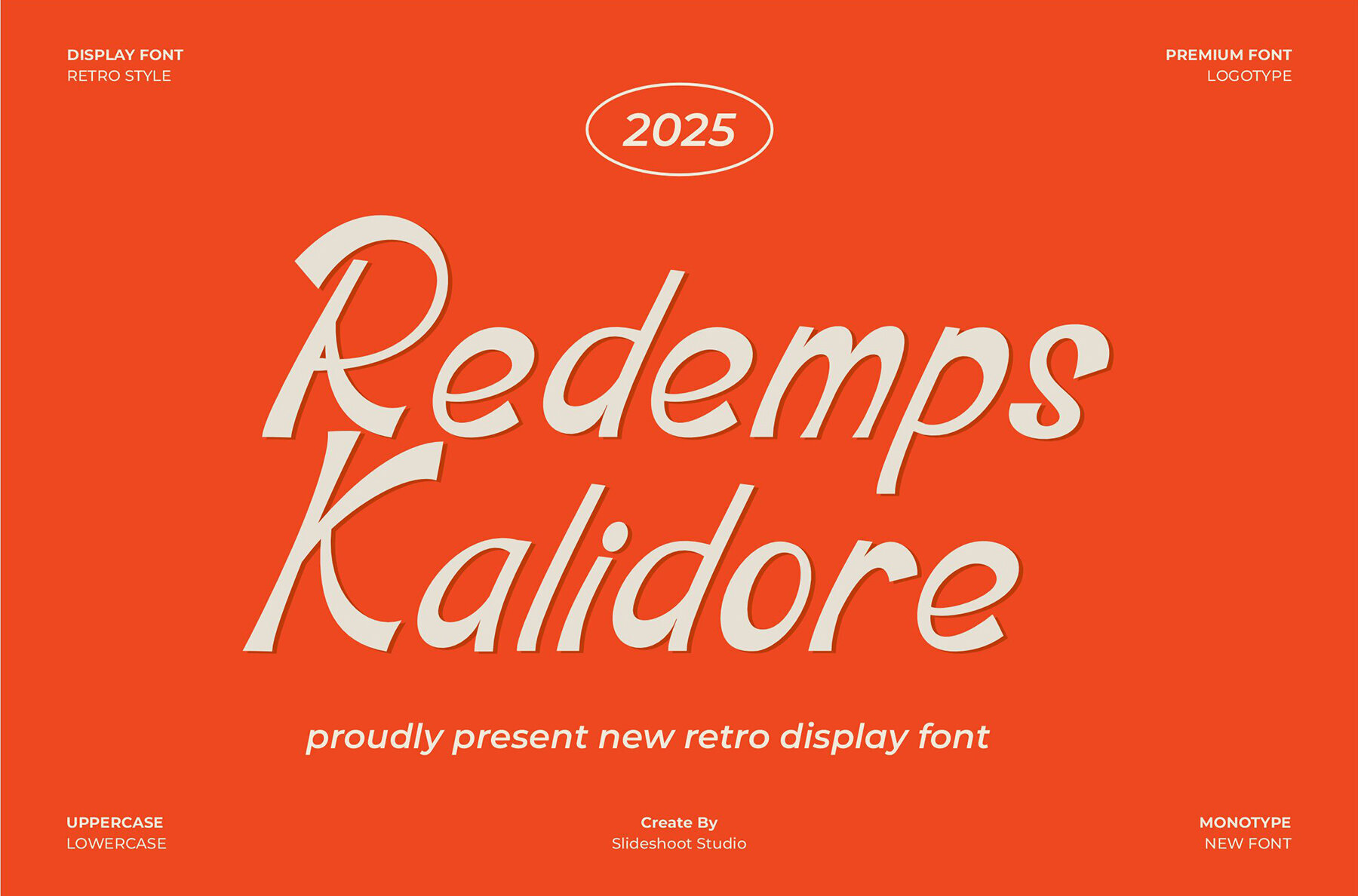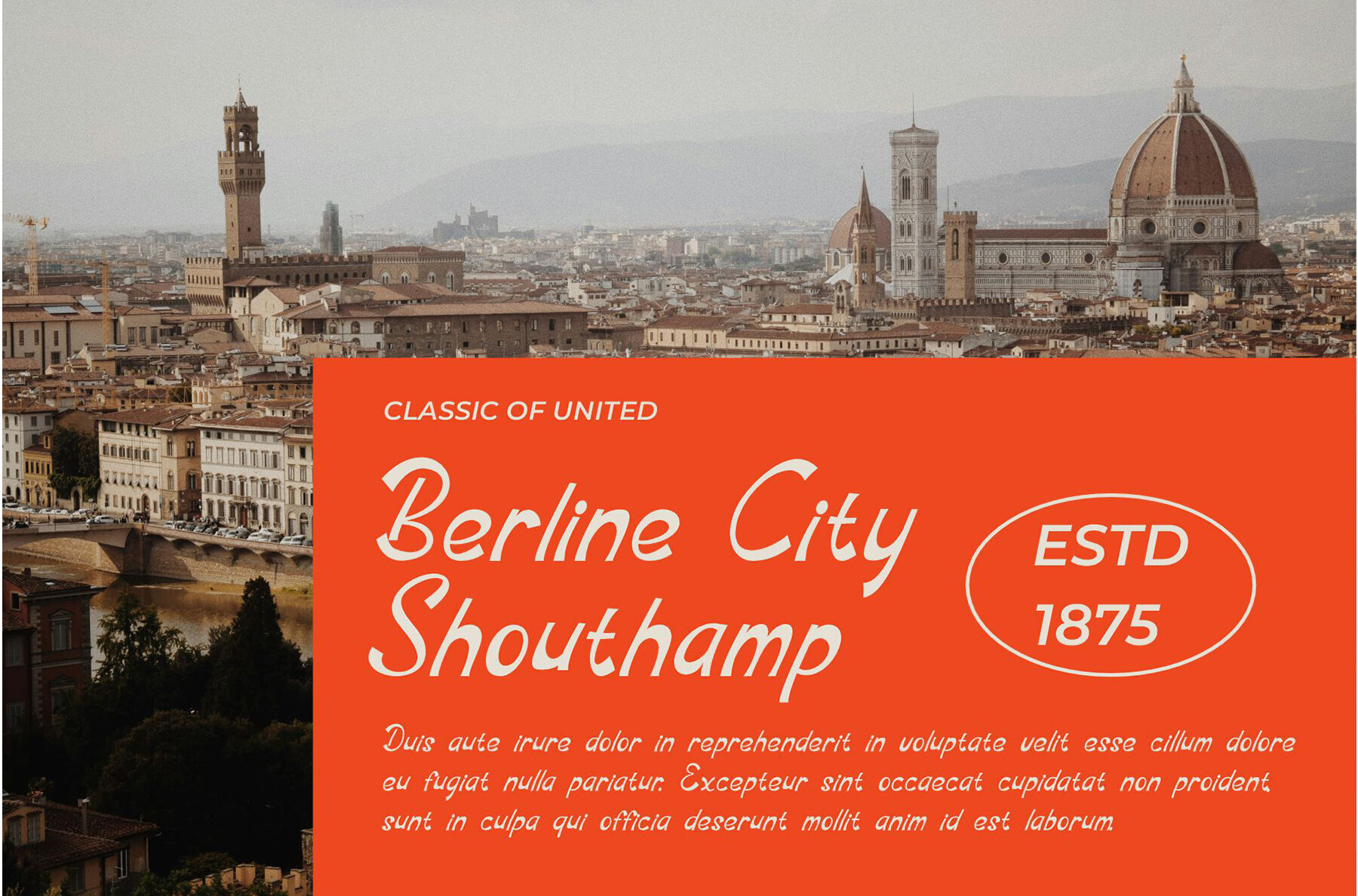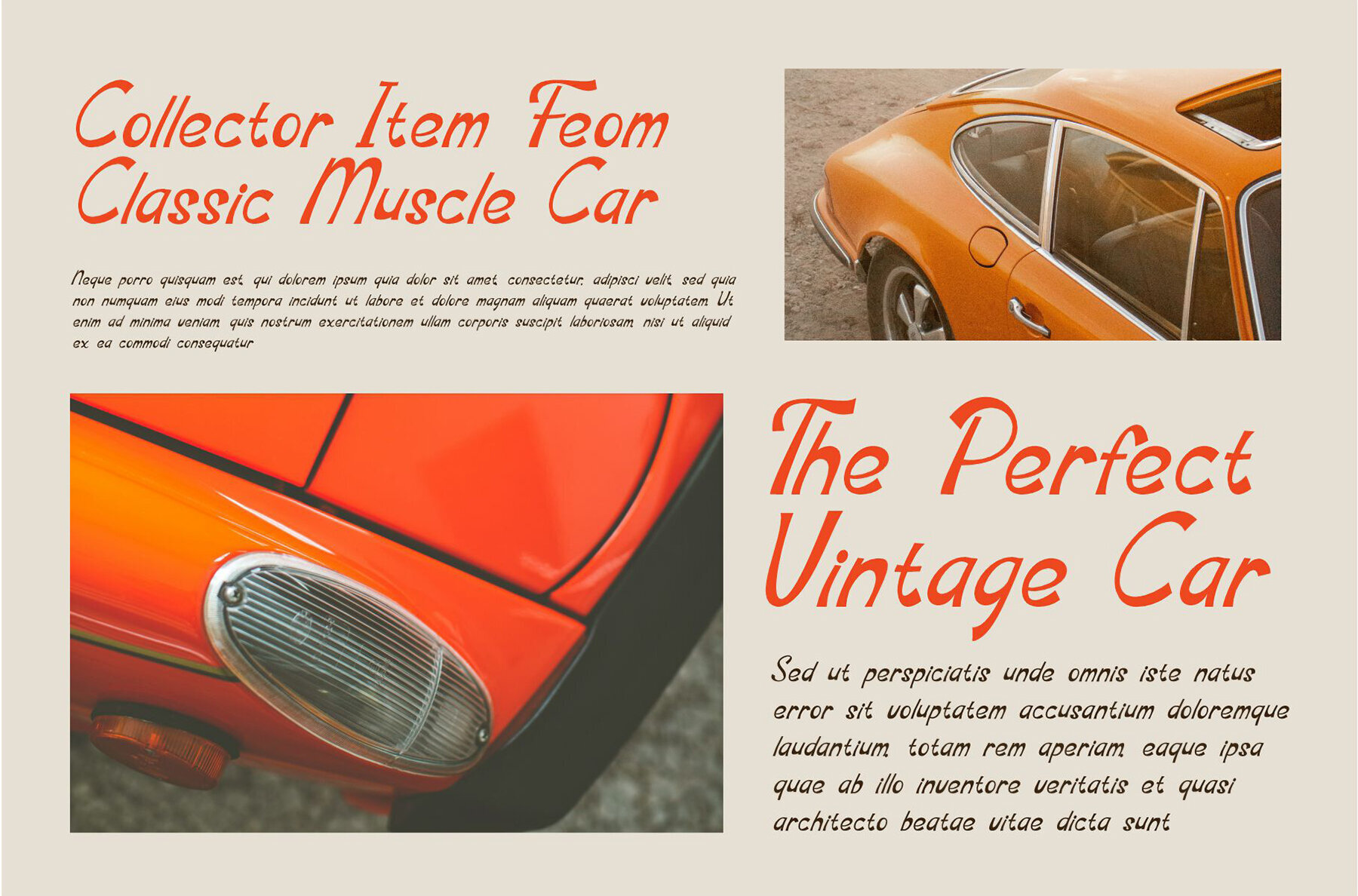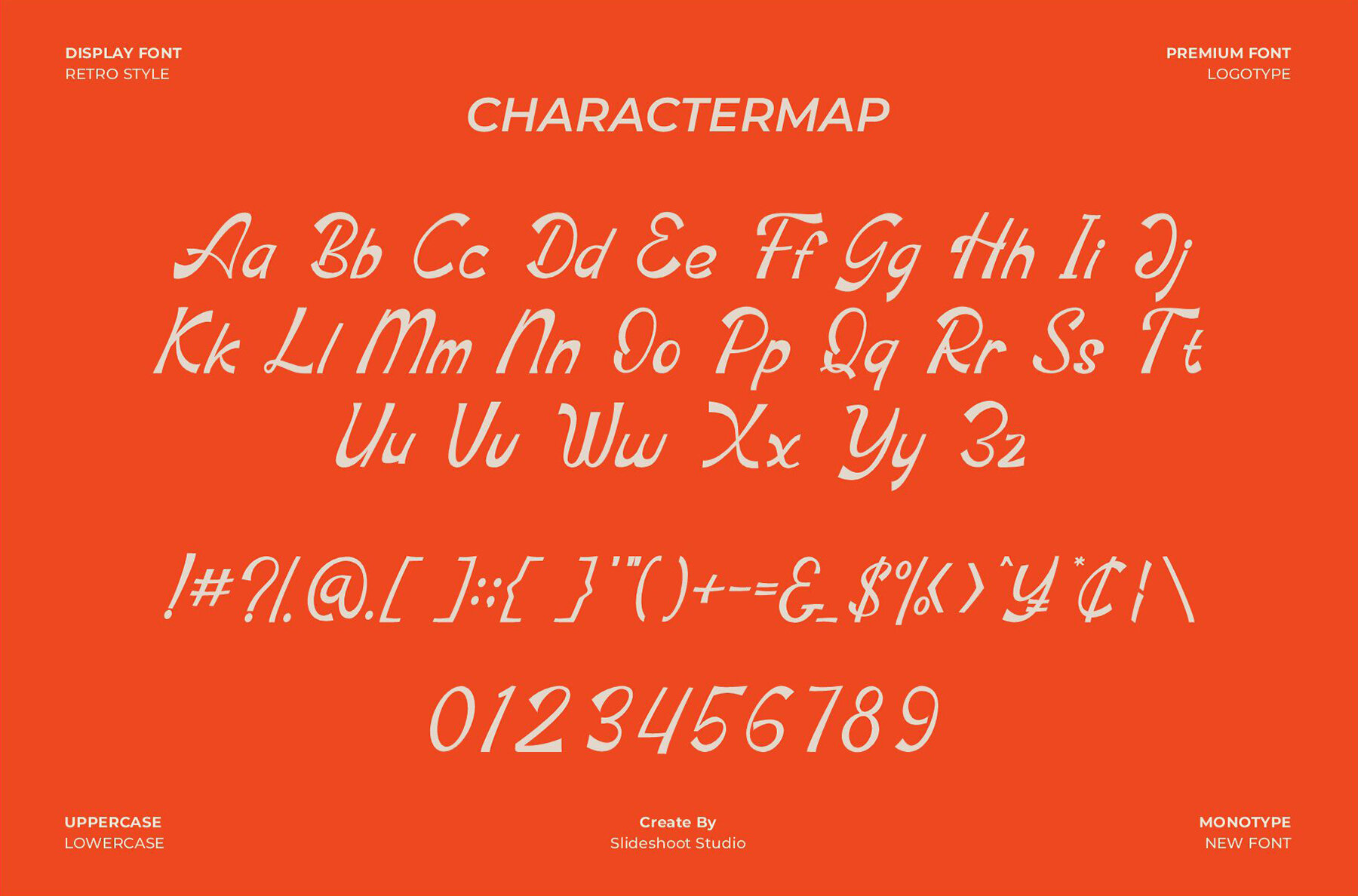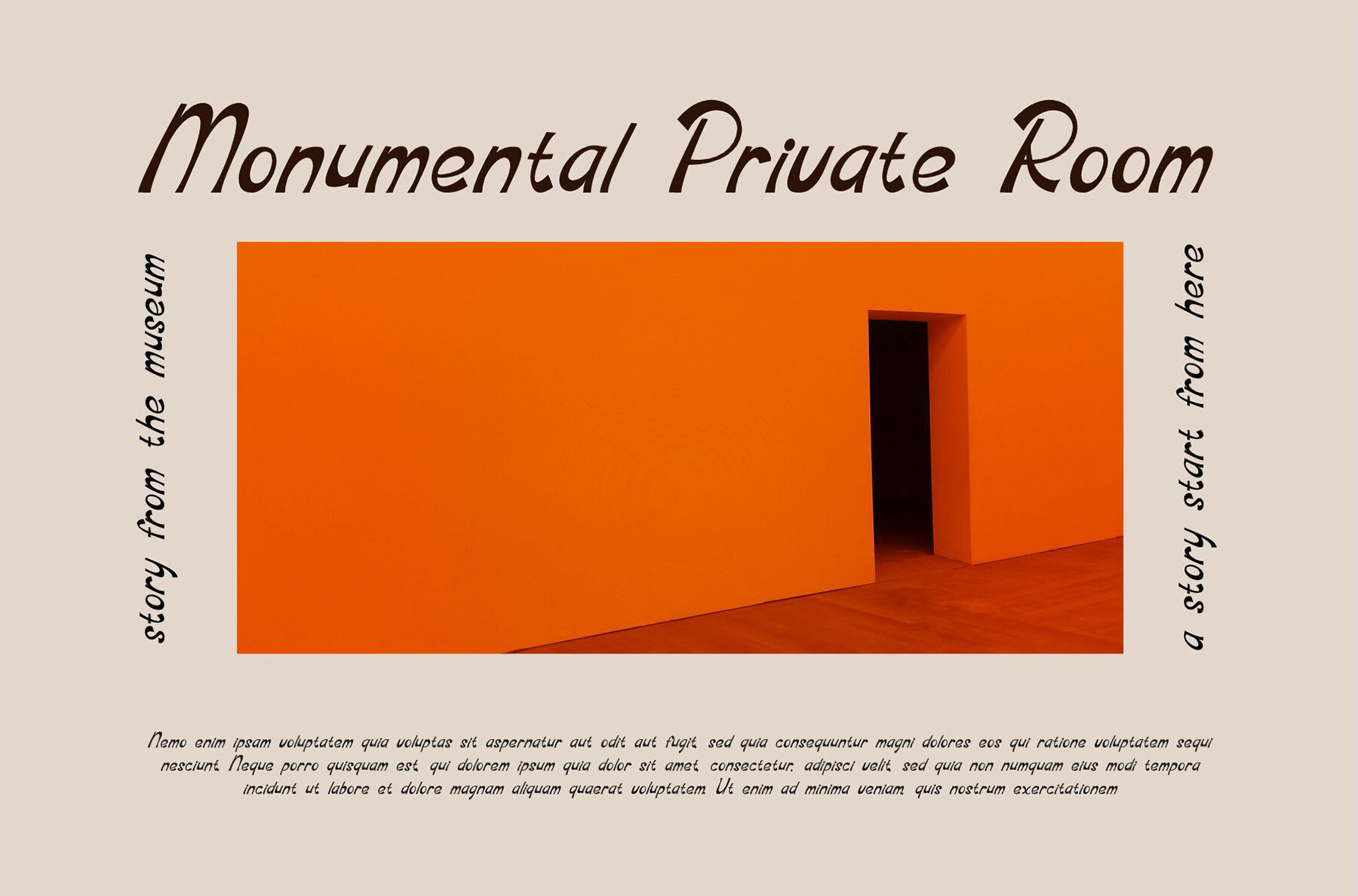
Redemps Kalidore Font
Redemps Kalidore
Redemps Kalidore offers a delightful blend of retro and modern design, capturing attention with its bouncy and cute aesthetic. The font's unique wood-themed character makes it an excellent choice for a variety of projects, including invitation cards, company logos, movie titles, business cards, book covers, and brand names. Its versatile design seamlessly complements any creative endeavor.Redemps Kalidore – A Retro-Inspired Font